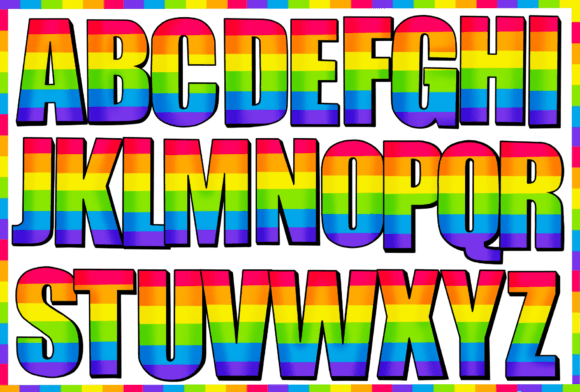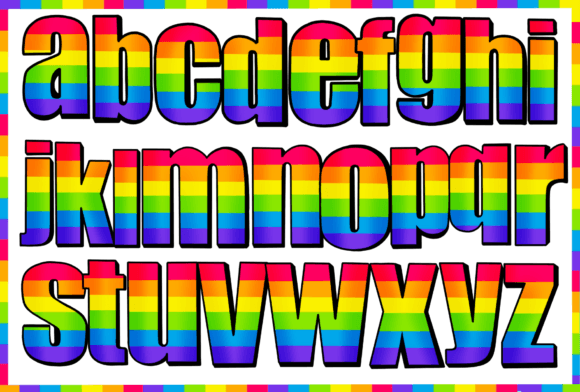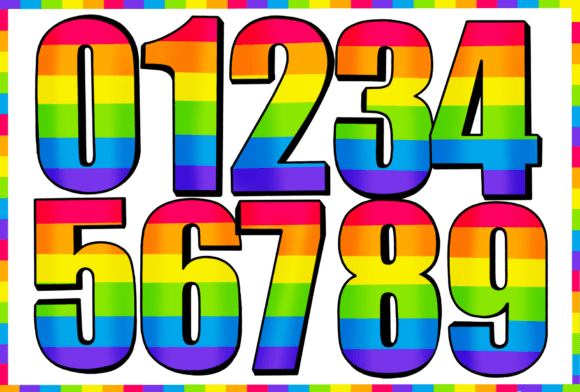
Introduction to Pride Month Font
As I sat at my desk, staring at a blank canvas, I knew exactly what I needed to bring my design to life – a dash of creativity and a splash of color. That’s when I remembered the Pride Month Font, a vibrant and stunning addition to any design project. With its rainbow hues, this font is more than just a design element – it’s a statement of love and acceptance.
As a designer, I know how valuable it is to have a high-quality, free download like the Pride Month Font in your arsenal. Not only does it add a unique touch to any creative project, but it also serves as a reminder of the importance of inclusivity and diversity. Whether you’re working on a campaign for the LGBTQ+ community or simply want to add a pop of color to your design, this font is a must-have resource.
Pride Month Font
- Unique characteristics include vibrant colors and bold typography, making it perfect for Pride Month celebrations and LGBTQ+ events
Honest Review: Pride Month Font
I recently stumbled upon the Pride Month Font, a free download that caught my attention. As a designer, I was excited to explore this new design resource. The font itself is a beautiful representation of the Pride Month celebrations, perfect for any creative project that requires a touch of diversity and inclusivity.
What works well with this font is its high quality and unique design. The font is available in several styles, including bold and regular, making it versatile for use in various contexts. I also appreciate that it has a transparent background, allowing for seamless integration into any design.
- ✨ High-quality design that reflects the Pride Month spirit
- ✨ Transparent background for easy integration
- ✨ Versatile font styles (bold and regular)
However, I did notice that the font is only available in a limited range of languages, which may be a limitation for designers working on projects that require multilingual support. Additionally, the font’s design is quite specific to the Pride Month theme, which may not be suitable for all design projects.
Overall, I think the Pride Month Font is a great addition to any designer’s toolkit. While it may have some limitations, its unique design and high-quality make it a valuable resource for any creative project that requires a touch of diversity and inclusivity.
Pride Month Font
The Pride Month Font is perfect for creating designs for Pride Month celebrations, LGBTQ+ events, and awareness campaigns. You can use it to create posters, flyers, social media graphics, and other visual materials that promote inclusivity and diversity.
To get the most out of the Pride Month Font, experiment with different font sizes, colors, and combinations. You can also pair the font with other design elements, such as icons and graphics, to create visually appealing and engaging designs.